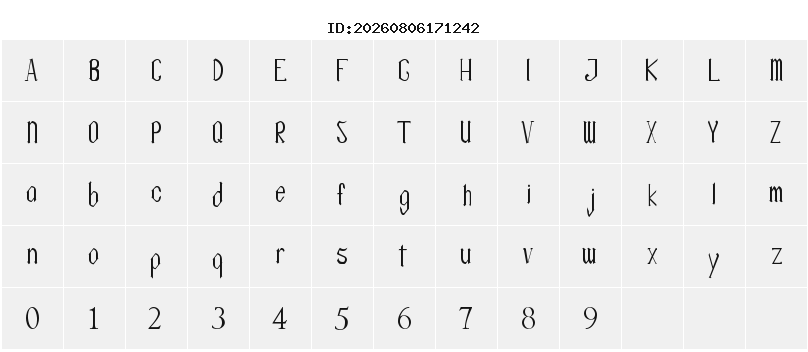
About Olissipo Script.ttf
Olissipo Script.ttf is a modern, elegant sans-serif font designed for ultimate readability and visual harmony. Perfect for branding, headlines, web design, and print materials.